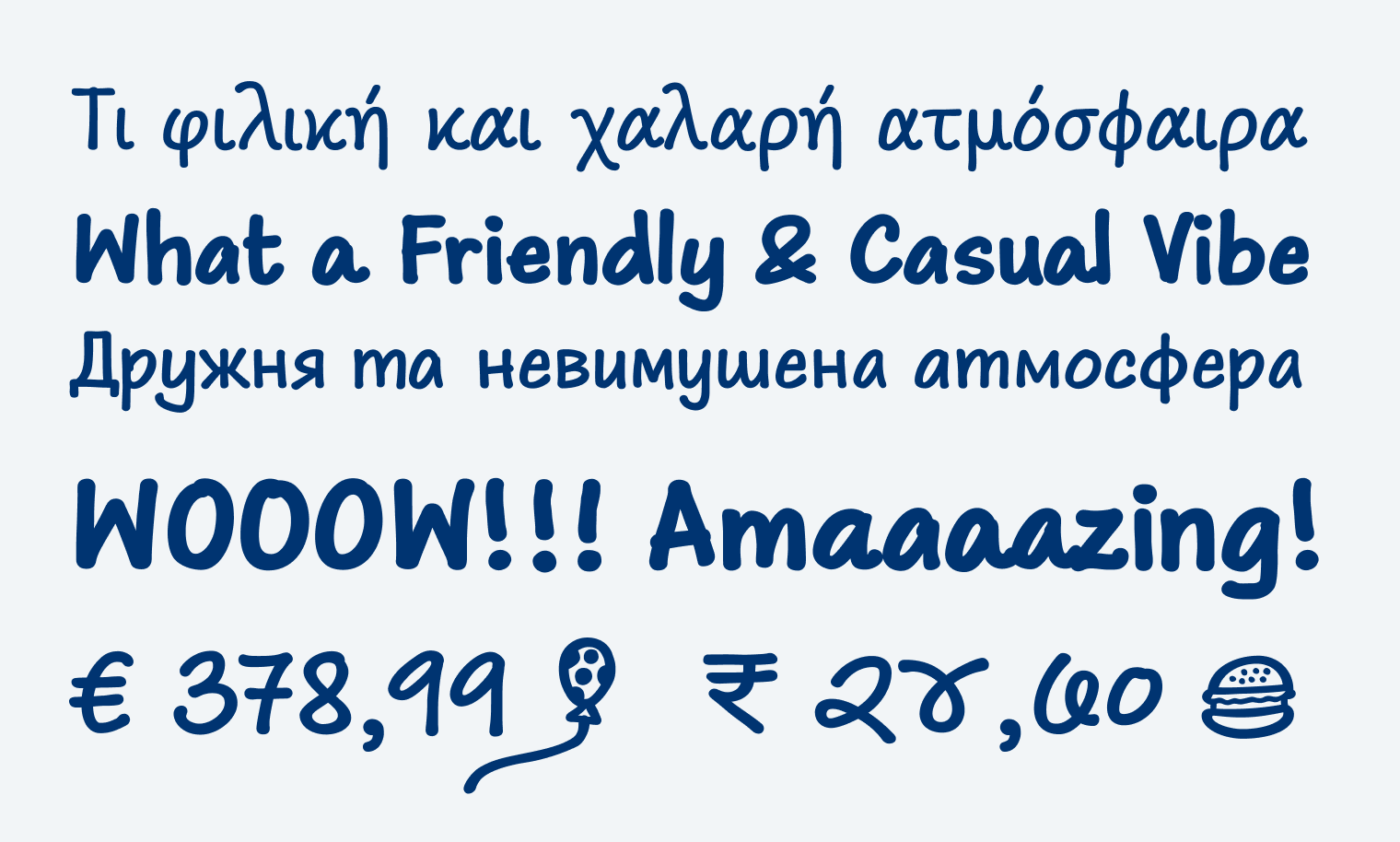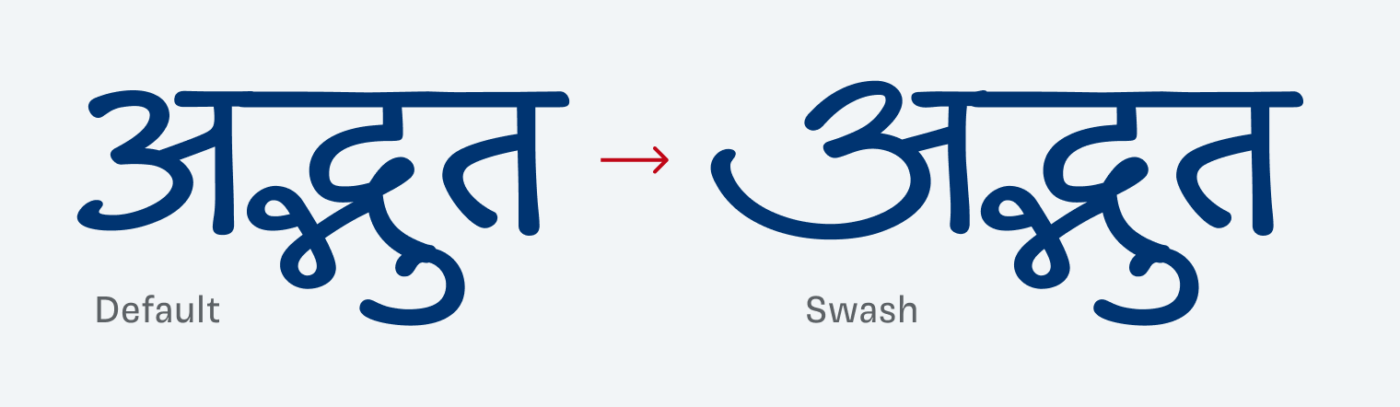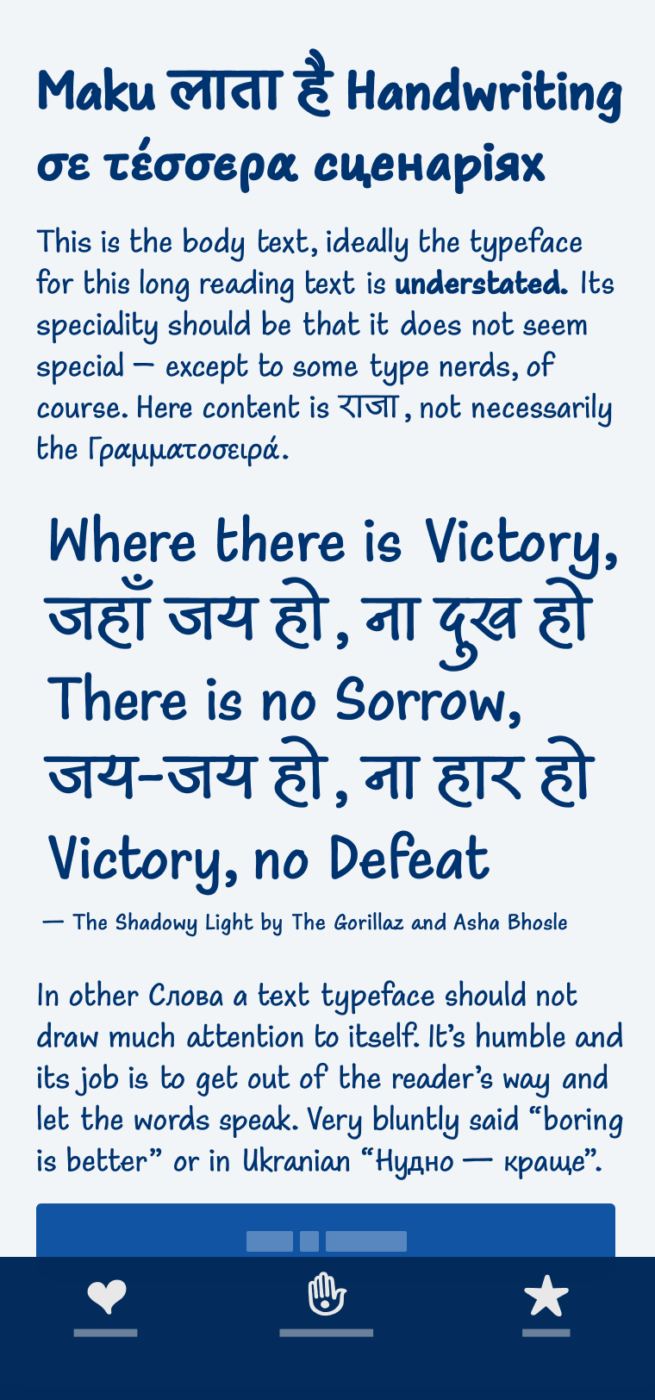
My Maku Font Review
Maku is a charming handwritten-style typeface that covers four scripts. It seems very casual and approachable. The typeface comes as a variable font, with a ton of stylistic alternates and even includes a few playful symbols. I love how it authentically mimics a friendly handwritten look through utilizing alternates of one character. This way when the same letter appears repeatedly, it still feels natural.
Most notable, however, is its support for the Devanagari script. I had the pleasure to learn a bit about it in Kimya Gandhi’s talk at beyond tellerrand. There are still relatively few high-quality typefaces for Devanagari, even though more than 600 million people use it. Especially natural looking handwritten styles are rare. What I find particularly interesting is that Kimya included a swash style for it, which is very uncommon in this alphabet.
To me, Maku is a great way to bring a playful vibe into a design. It works best for display text or small annotations. It is also readable in body text, though it’s best used sparingly. If you do use it, set it about 15% larger than usual.
Font Pairings with Maku
Maku imitates a very clear, marker-like handwritten style – not too fancy. Pair it with something clean, like one of the suggestions below. But my favorite is Fig Grotesk, because it somehow underlines playfulness in a rigid way.
I wonder if anyone outside of design, creative or type circles appreciates the craftsmanship that goes into creating a font, Oliver. I think of that especially when I see something naive, and playful like this. A unified system with laid-back letters that still holds together… I trust that’s actually the greater challenge. Love the Cyrillic, of course.
And when pairing, I enjoy reserved and sans, almost boring with Maku (and similar) to let them shine but still be a supporting companion.
And for the fav letter, all Cyrillic are cute, I don’t have proper keyboard to list them 😬 Slavic girl
Love that you love the Cyrillic characters! 😊 And I guess we’re the only ones that appreciate the effort that goes into a decent typeface 😉. Many people I talk with think fonts are just there.